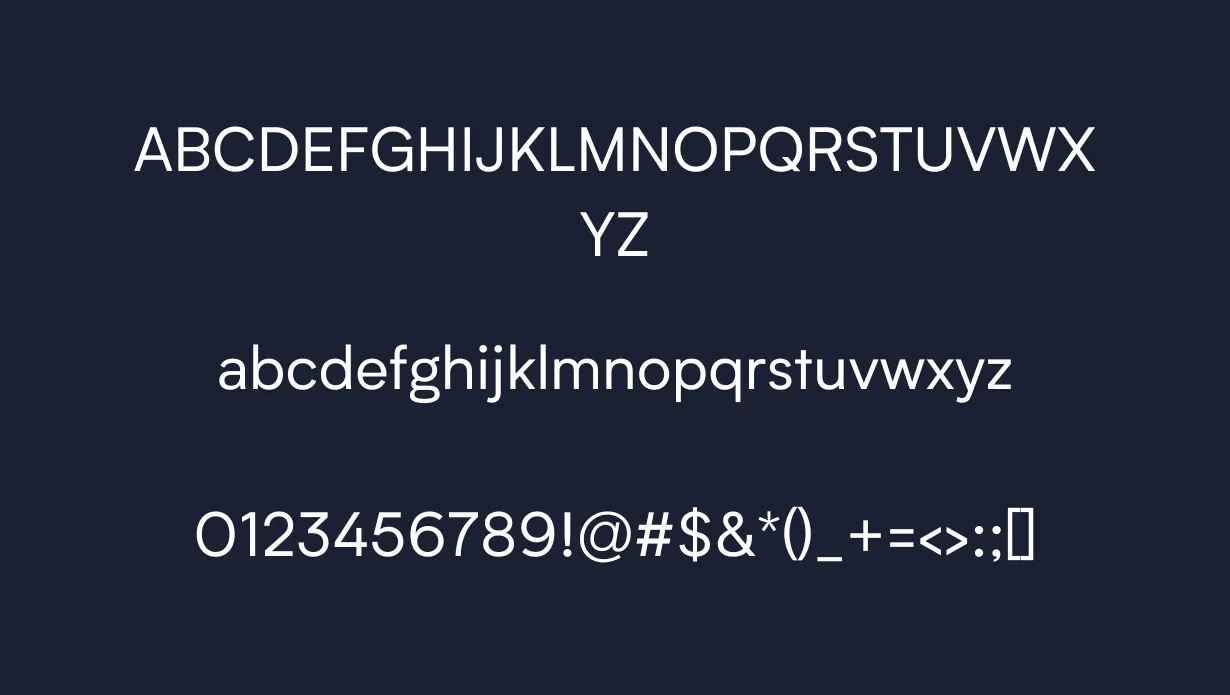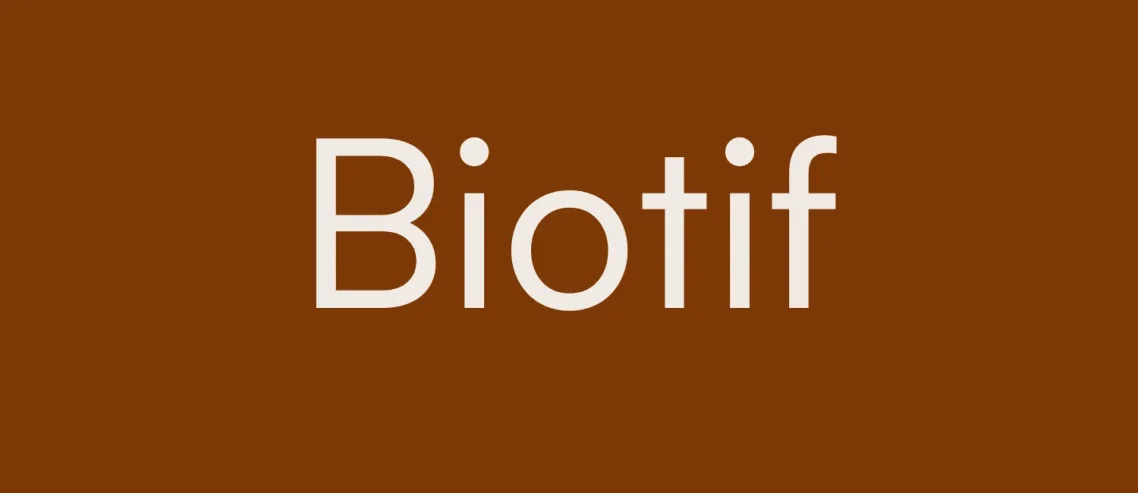
Biotif Font
Biotif font has beautiful ligatures, styles, textures and look. It contains many styles and text characters set as well.
All the other characters look like atletico font can be accessed through the Opentype features. Fractions, Tabular Lining, Ligature, Alternate Characters, Circle Numbers, Symbols, arrow and more.
Style Of Biotif Font